OH no Type Co.
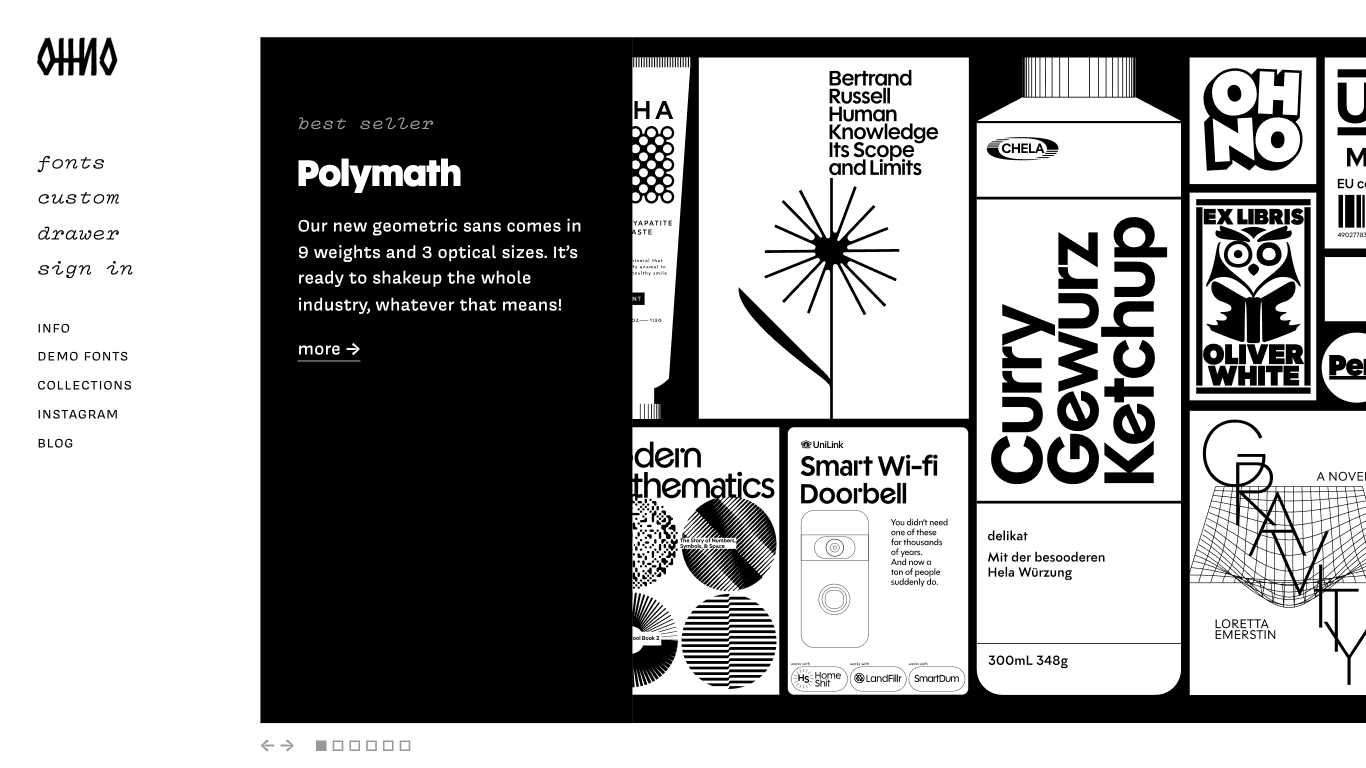
2015
OH no Type Co. is a digital type foundry founded by James Edmondson in 2015, based in San Jose, California. A unique aspect of the foundry is its commitment to making graphic design fun and accessible—the name “OH no” cleverly references the letters H, O, n, and o, which play a key role in defining typographic spacing. The foundry is known for expressive, personality-rich fonts such as Obviously, a 96-style superfamily; Polymath, a versatile geometric sans; Yumex, inspired by Yugoslavian and Mexican visual culture; Forevs, with seven weights and small caps; and Irregardless, a whimsical, unconventional typeface.